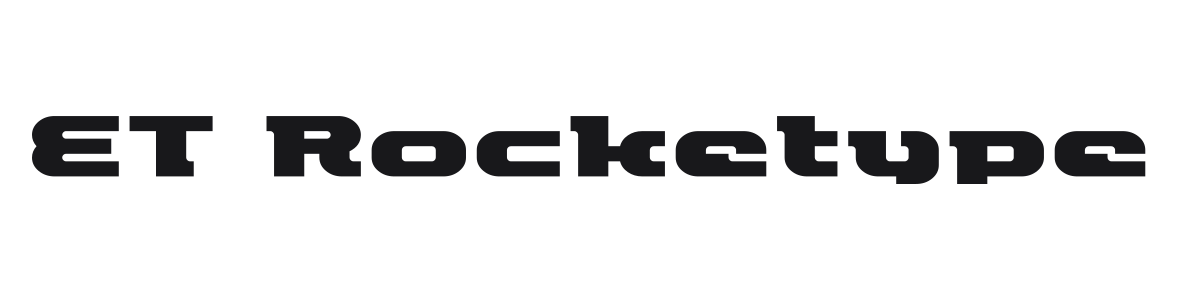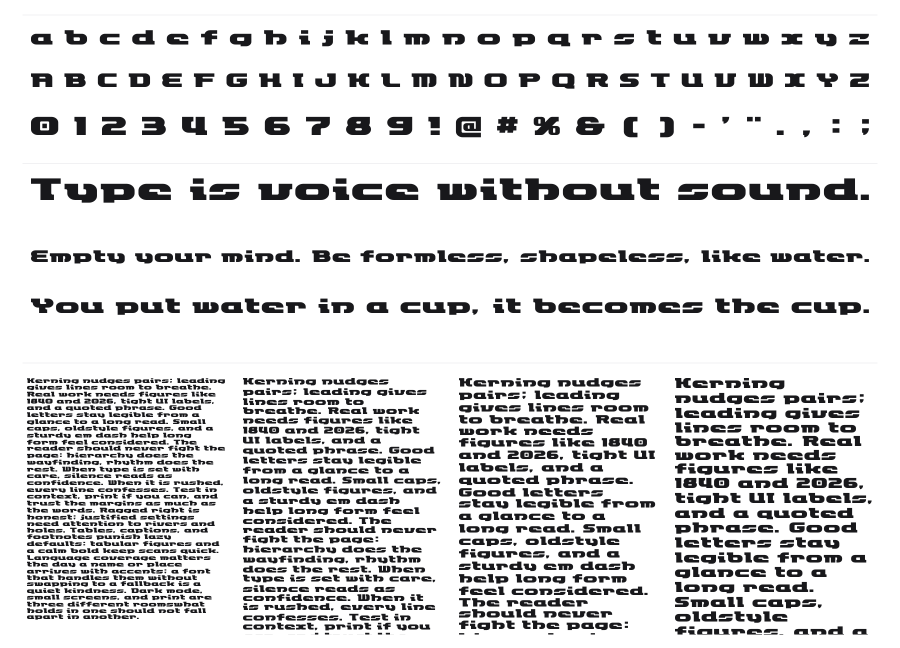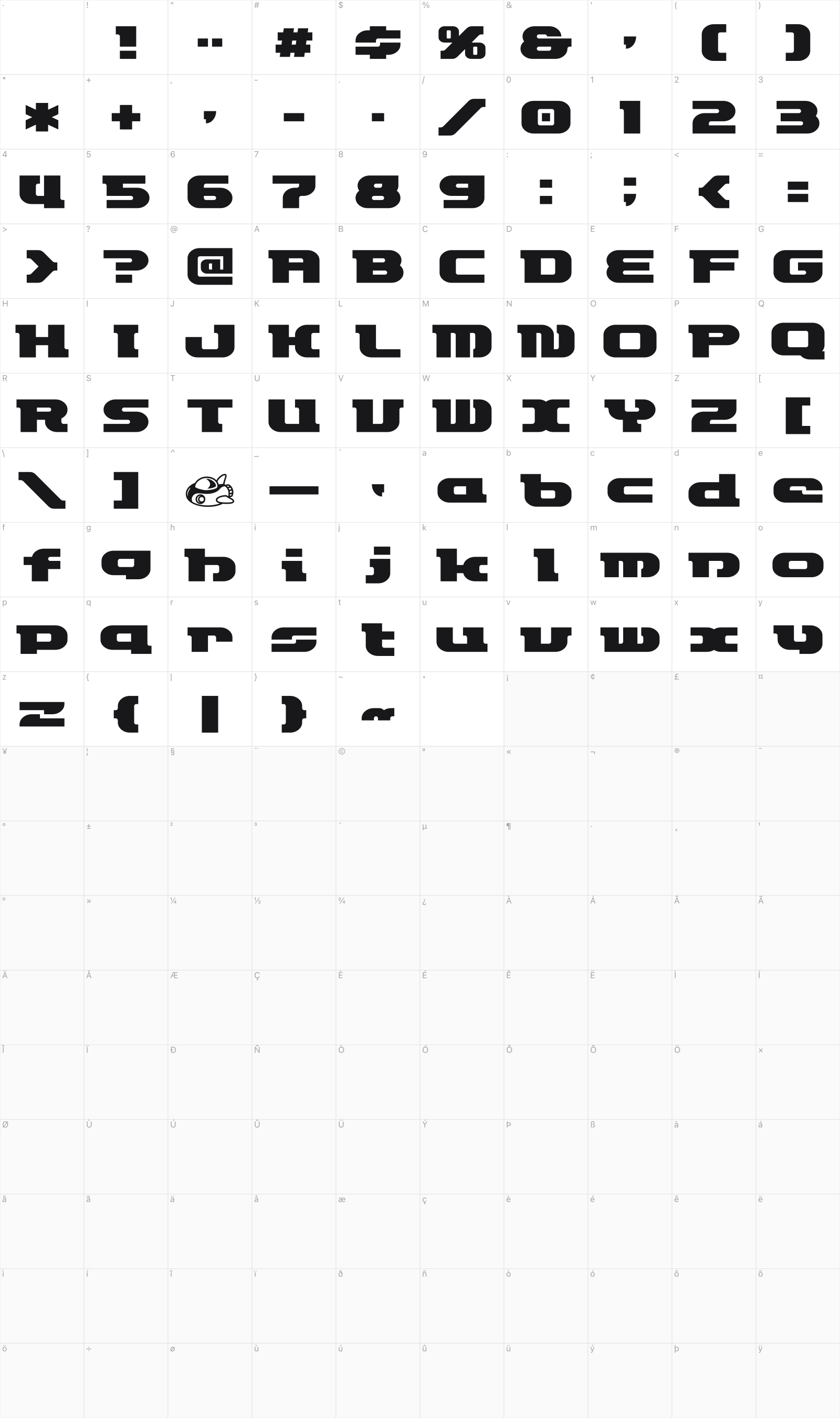
ET Rocketype
by Electropithecus
ET Rocketype is a heavy retro-futurist display face from 1999 with wide, blocky characters and deep rectangular notches cut into the strokes at joints and terminals. The mechanical cutouts give it a distinctly late-nineties sci-fi energy, somewhere between a video game interface and a spacecraft logotype. It works best large, where those details hit.